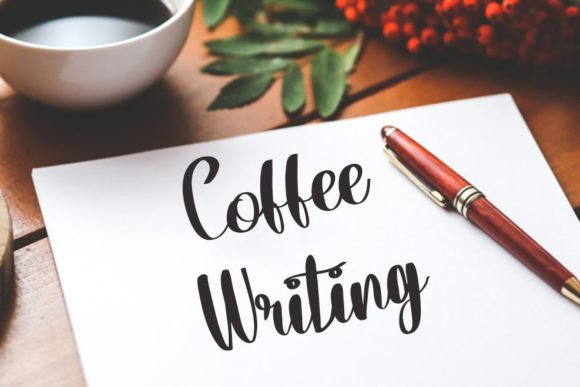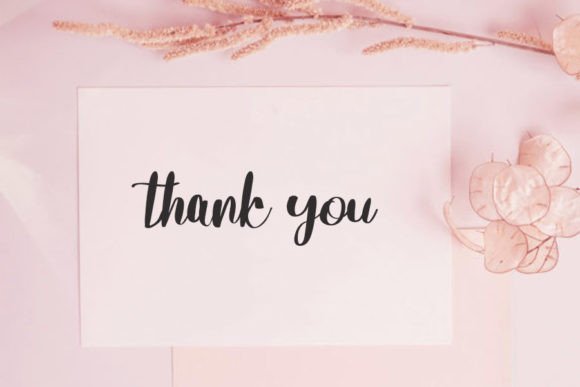
The Perfect Script for Your Special Moments
As designers, we’ve all had those ‘aha’ moments where a font just clicks, and we know we’ve found the perfect match for our project. It’s a feeling of excitement, a rush of creativity, and a sense that our design is about to take a new, beautiful shape. For me, that moment came when I discovered the Happy Birthday Font.
This luxurious handwritten font is more than just a pretty face – it’s a tool that adds elegance and sophistication to any project. With its unique, timeless style, the Happy Birthday Font is perfect for designers looking to create spectacular designs that leave a lasting impression. Whether you’re designing a special birthday invitation or a romantic wedding card, this font is sure to make your project shine.
What sets the Happy Birthday Font apart is its versatility and value. It’s a font that can be used for a wide range of projects, from personal to professional, and its distinct style is sure to make your designs stand out from the crowd.
Key Features of “Happy Birthday Font”
- Unique Characteristics: Hand-drawn design with a playful, cursive style and decorative elements, perfect for adding a personal touch to birthday celebrations
- Font Style: Script, Casual, and Display styles available for added versatility
Happy Birthday Font Review
Overall, I was excited to dive into the Happy Birthday Font, but my experience was a mix of delight and disappointment.
The Happy Birthday Font’s playful and whimsical feel is sure to bring a smile to anyone’s face. The use of bright colors and bubbly characters is perfect for adding a celebratory touch to any design project. The font is also highly customizable, allowing you to adjust the size, color, and style to suit your needs.
- Limited font sizes: While the font is highly customizable, the number of font sizes available is limited, which may not be ideal for complex designs.
- No matching bold or italic styles: The font only comes in a regular style, which may make it difficult to create emphasis or highlight important text.
- Not suitable for formal designs: The playful nature of the font makes it better suited for casual or creative projects, rather than formal or professional ones.
In conclusion, the Happy Birthday Font is a fun and versatile option for designers looking to add a celebratory touch to their projects. While it has its limitations, the font’s playful feel and customization options make it a great choice for the right project.
The Happy Birthday Font is ideal for creating birthday cards, invitations, and social media posts. To get the most out of it, use it in conjunction with bright and colorful graphics to create a festive atmosphere. Experiment with different font sizes and styles to add emphasis to your text.
Common use cases include creating birthday greetings, party invitations, and social media posts for special occasions.